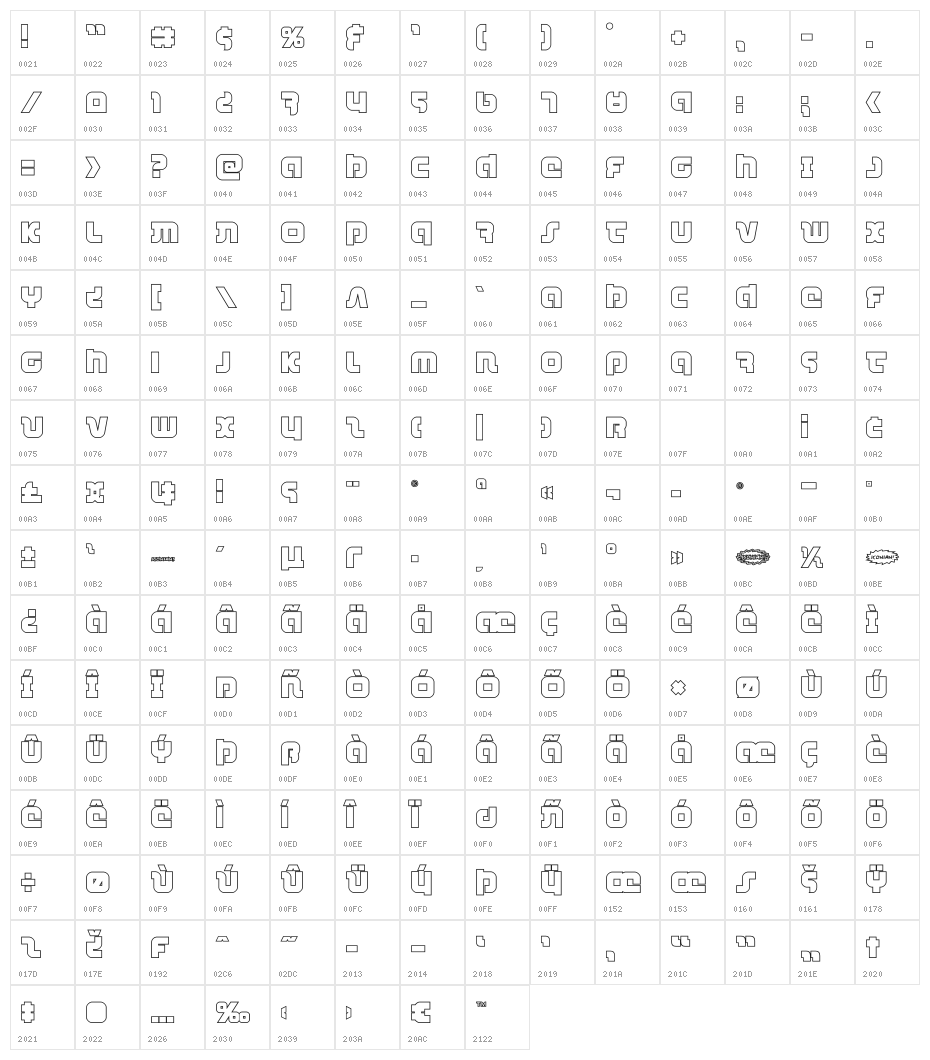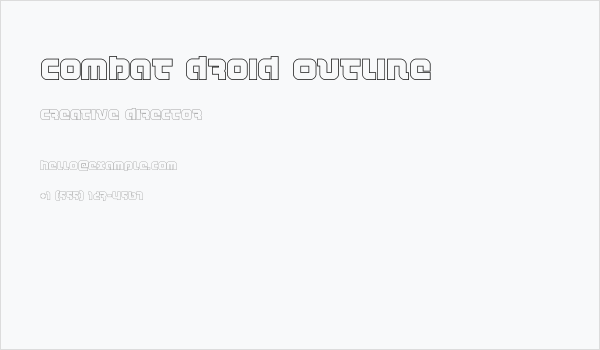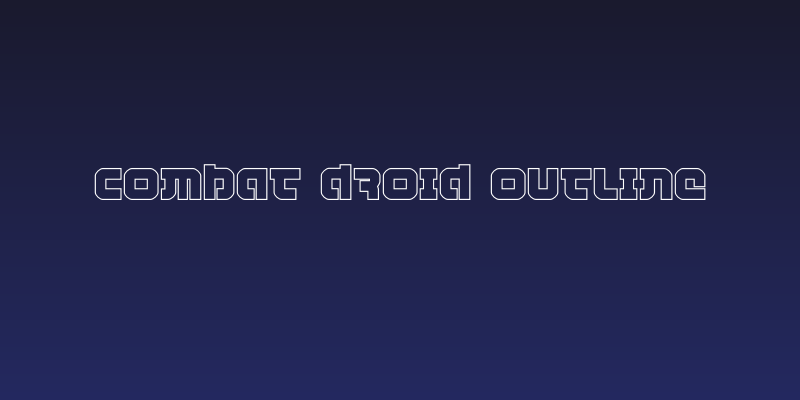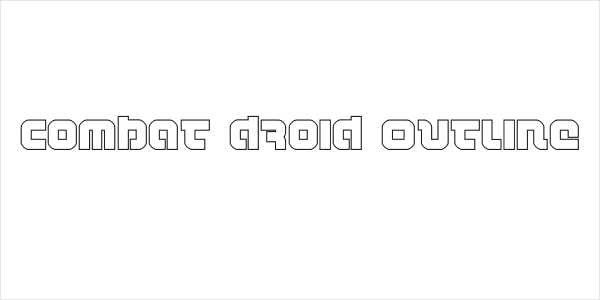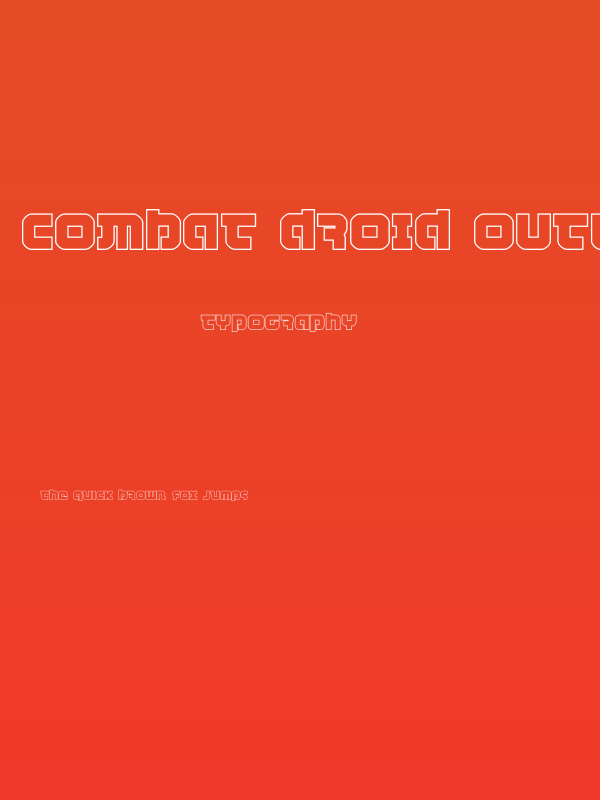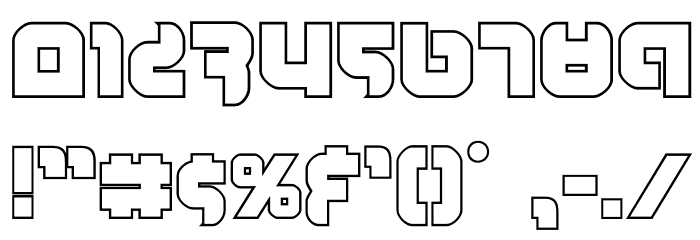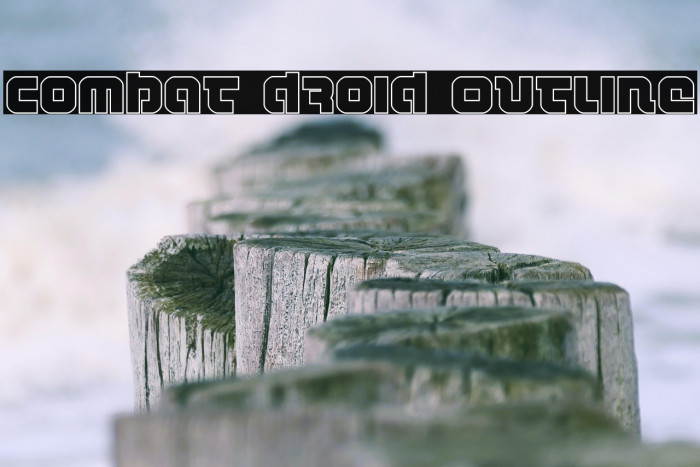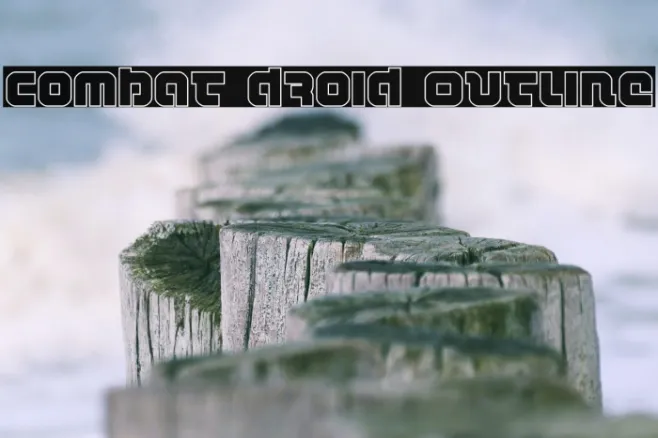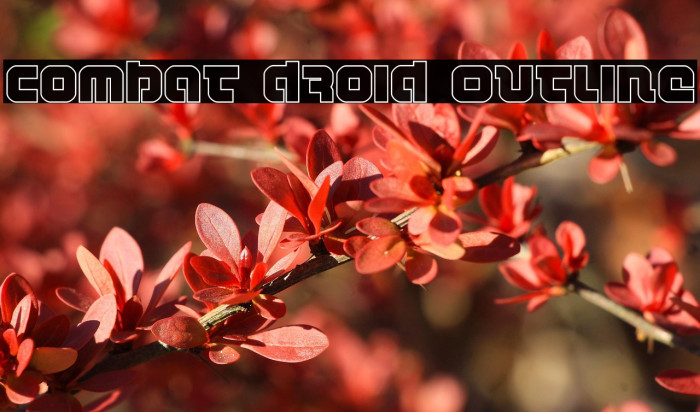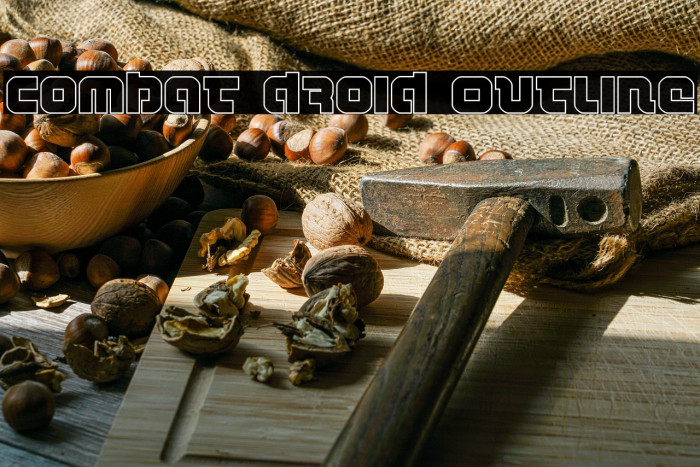
Combat Droid Outline Font
Combat Droid Outline Description
This font features a bold, futuristic design with an outline style that emphasizes its geometric structure. Each character is crafted with sharp angles and straight lines, creating a mechanical and robotic aesthetic. The uppercase and lowercase letters maintain a consistent height, enhancing the uniformity of the typeface. Numbers and special characters follow the same design principles, ensuring a cohesive look across all elements. The outline effect adds a layer of depth, making the font suitable for eye-catching designs.
| Proposed Projects | Ideal for sci-fi themed projects, tech branding, video game titles, and futuristic posters. |